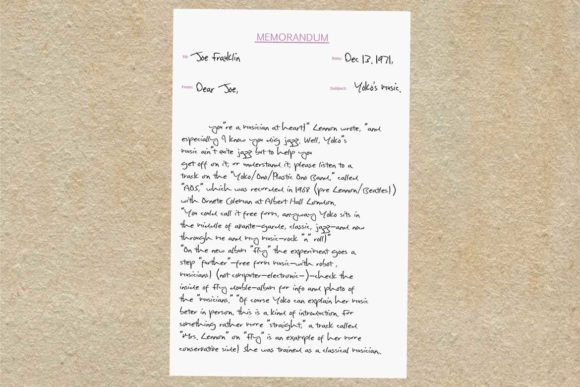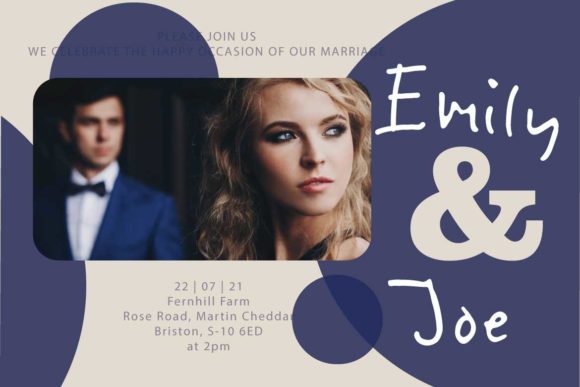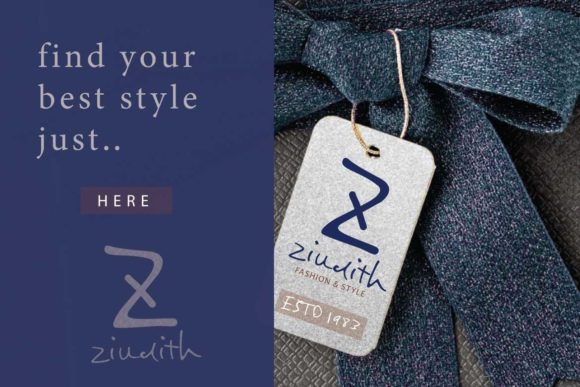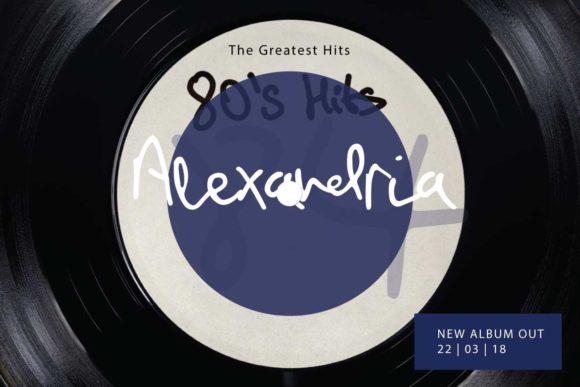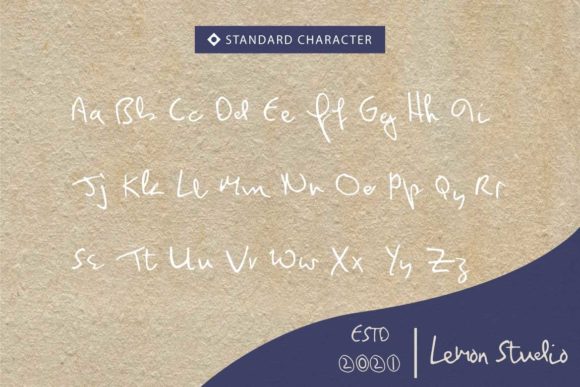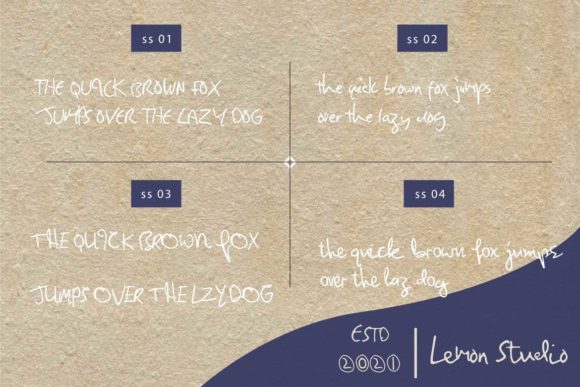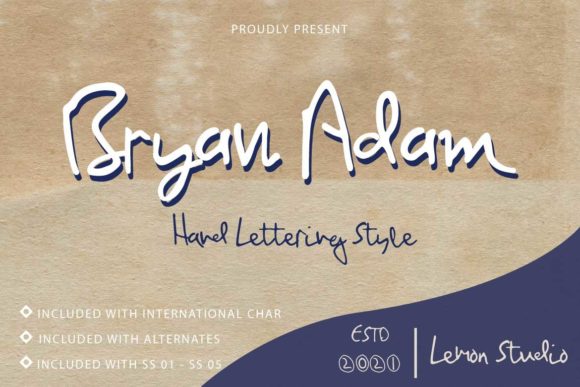
Bryan Adam Font: Elevate Your Designs with Elegance and Class
Bryan Adam is a stunning script font that embodies sophistication and refinement. Specifically designed for those seeking to infuse their designs with a touch of luxury and freshness, this font is sure to captivate your audience. In this article, we’ll delve into the world of Bryan Adam Font, exploring its features, benefits, and applications, as well as provide valuable insights for designers and crafters.
The Essence of Bryan Adam Font
Bryan Adam is a lovely and delicate script font that exudes elegance and class. Its unique design makes it an excellent choice for a wide range of projects, from wedding invitations and branding materials to packaging and digital media. This font’s distinctive characteristics include:
- Delicate strokes: Bryan Adam’s strokes are carefully crafted to create a sense of fluidity and movement, adding a touch of whimsy to your designs.
- Elegant letterforms: Each letter is meticulously designed to convey a sense of sophistication and refinement, making it perfect for high-end branding and luxury projects.
- Refreshing look: The font’s unique design ensures that your projects stand out from the crowd, injecting a dose of freshness and vitality into your designs.
Benefits of Using Bryan Adam Font
- Instant elegance: Bryan Adam adds a touch of sophistication to any design, instantly elevating your project’s visual appeal.
- Versatility: This font is suitable for a wide range of applications, from digital media to print materials, making it a valuable addition to your font library.
- Unique style: Bryan Adam’s distinctive design ensures that your projects stand out from the crowd, helping you establish a strong brand identity.
Applications of Bryan Adam Font
Bryan Adam Font is an incredibly versatile font that can be used in various contexts, including:
- Wedding invitations and stationery: Add a touch of romance and elegance to your wedding designs with Bryan Adam’s beautiful script.
- Branding and packaging: Elevate your brand’s visual identity with this sophisticated font, perfect for luxury brands and high-end products.
- Digital media: Use Bryan Adam in your digital projects, such as social media graphics, blog headers, and website designs, to add a touch of refinement and class.
- Pair with contrasting fonts: Combine Bryan Adam with a contrasting font to create visual interest and add depth to your designs.
- Experiment with colors: Try pairing Bryan Adam with a range of colors to find the perfect combination that complements your brand’s identity.
- Pay attention to spacing: Ensure that you leave sufficient spacing between letters and lines to maintain the font’s elegance and readability.
Bryan Adam Font is a beautiful and refreshing script font that can elevate your designs to new heights. With its delicate strokes, elegant letterforms, and versatile applications, this font is sure to become a staple in your font library. Whether you’re a designer, crafter, or simply someone looking to add a touch of elegance to your projects, Bryan Adam Font is an excellent choice. So why wait? Discover the world of Bryan Adam Font today and transform your designs with its unique blend of sophistication and refinement.